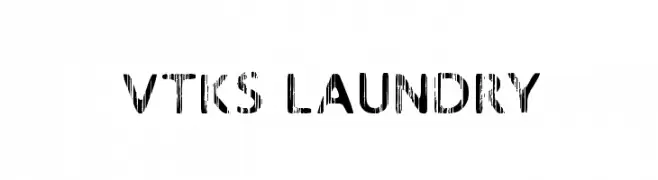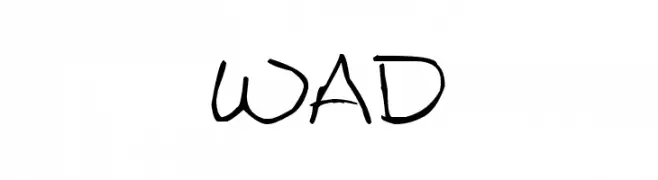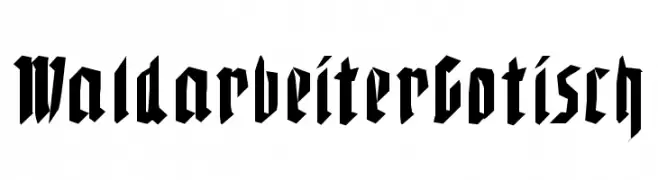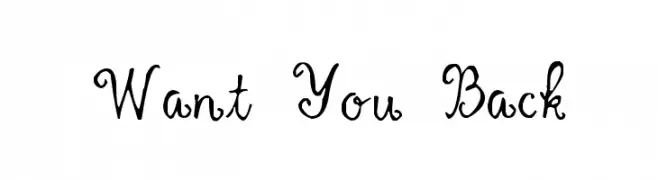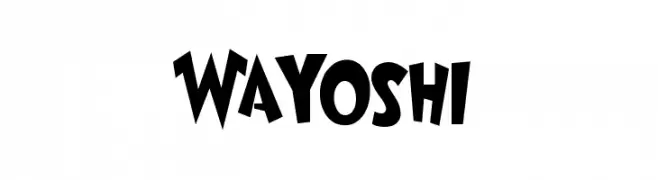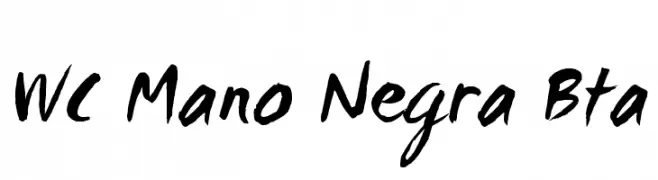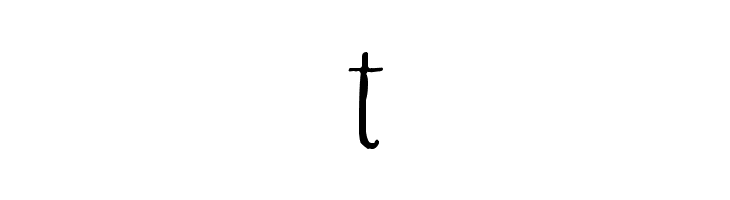
A distressed, grunge-style font with a textured, weathered appearance.
A bold, angular Blackletter font with a historical Gothic style.
A whimsical, hand-drawn script font with playful curves and artistic flair.
A whimsical and playful font with decorative swirls and artistic flair.
A classic serif font with elegant strokes and sharp serifs, ideal for professional use.
A bold, expressive handwritten font with dynamic brush-like strokes.
A bold, expressive handwritten font with dynamic strokes.